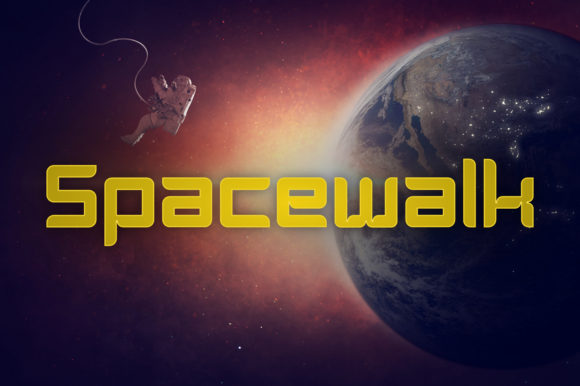
Step into a world of bold and stunning typography with Spacewalk, a display font that will send your creative projects soaring to new heights. This bold, square-lettered font is the perfect companion for crafters, designers, and creatives alike, adding a touch of edgy elegance to everything from cards and invitations to branding, labels, and more.
Unleash your creativity with Spacewalk's versatile design. Its clean, geometric lines and strong presence make it a standout choice for a wide range of projects. Whether you're creating logos, posters, or social media graphics, Spacewalk's striking appearance will demand attention and leave a lasting impression.
With Spacewalk, you'll find endless possibilities for expressing yourself. Its crisp, modern aesthetic brings a fresh and contemporary feel to any project, while its sturdy construction ensures that your words will always be legible and impactful.